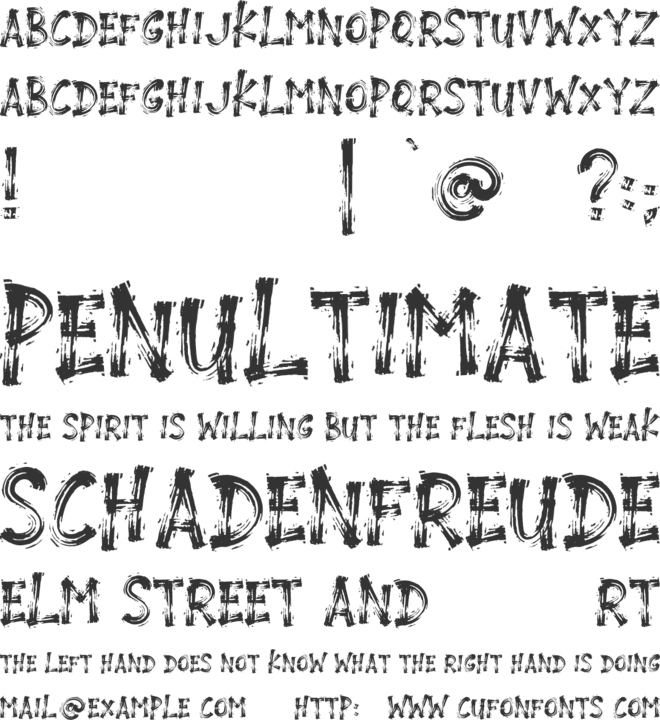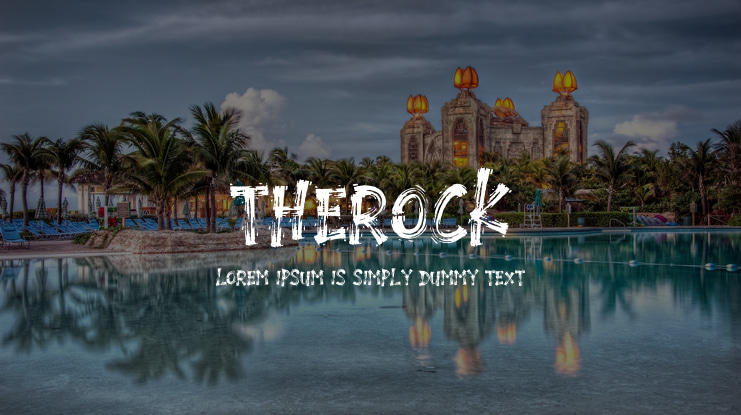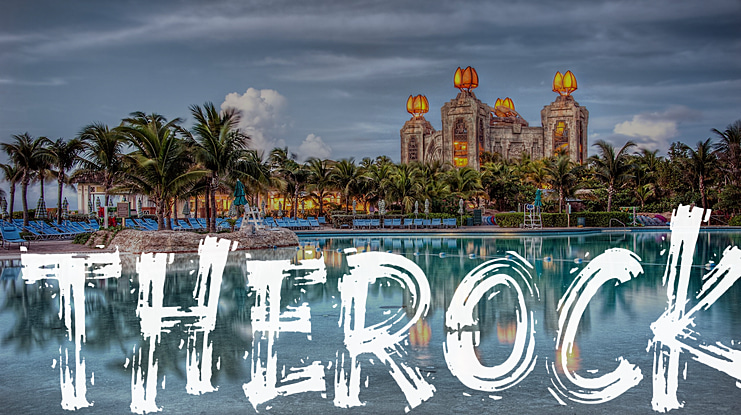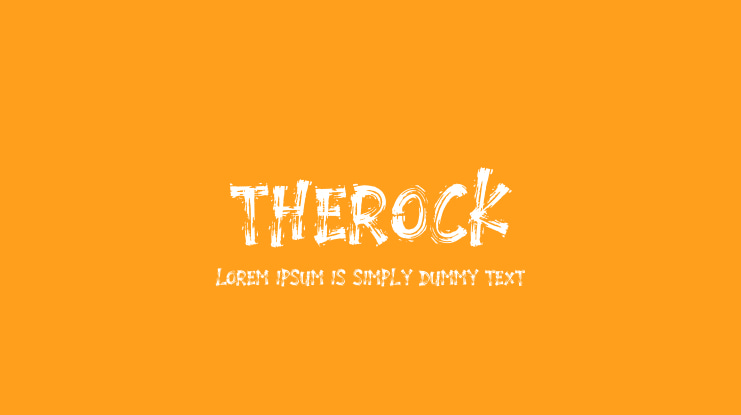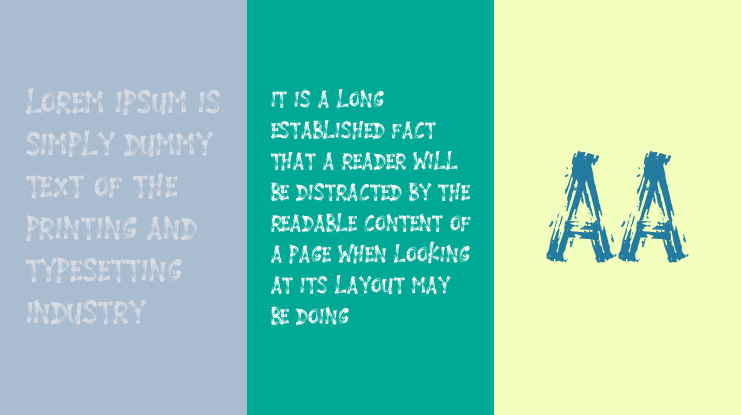
THEROCK Font
Malik Wisnu
INTRODUCING THEROCK Urban Brush Font is a supercharged, street-wise brush font bursting with energy. With extra attention to quick strokes and sharp details, THEROCK is ideal for logos, apparel,T-shirt,Hoodie, quotes, product packaging, or anything which needs a typographic turbo-boost. What's Included: THEROCK Regular - The standard version of the font. Perfect for titles and logos. THEROCK Swash - Need a cool underline under your text or a splash of paint? This font set has you covered. Type any letter a-z using this font, and you'll get a unique swash to accompany the font